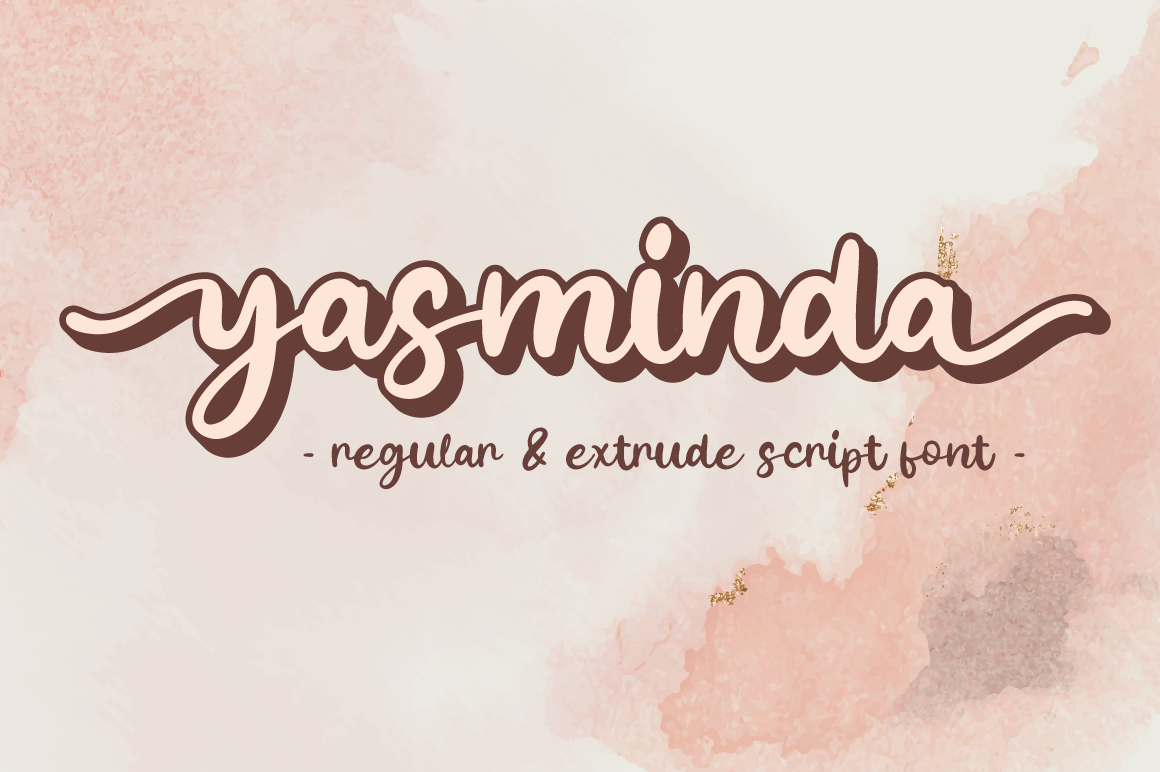
Yasminda - Layered Script Font
Yasminda is a layered script font with versatile style and use it to create spectacular designs Combine it with Yasminda - Extrude to make an amazing 3D effect on your letter!
Yasminda perfect for wedding promotion, branding, logo, invitation, stationery, social media post, product packaging, merchandise, blog design, game titles, cute style design, Book/Cover Title and more.